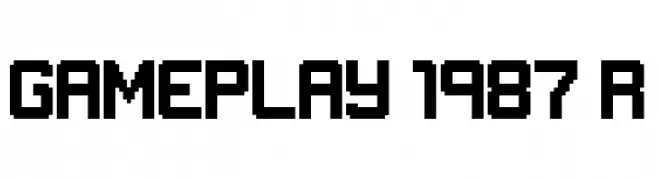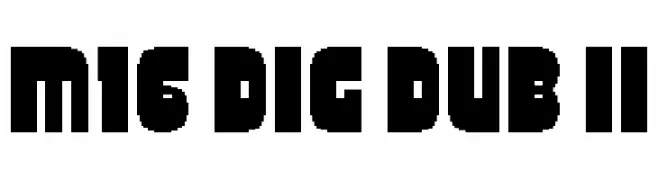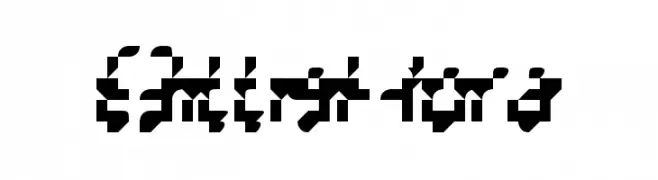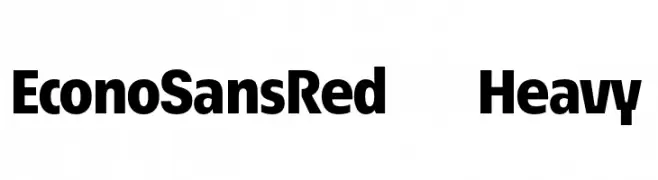
A bold, slanted font with a dynamic and energetic style.
A playful, bold, and handwritten-style font with rounded edges.
A playful handwritten font with smooth, flowing characters and a casual vibe.
A retro, pixelated font inspired by classic 1980s video games.
A bold, geometric font with a blocky, digital-inspired design.
A bold, fragmented, and pixelated decorative font with high contrast.
A bold, modern sans-serif font with strong geometric shapes and uniform stroke width.